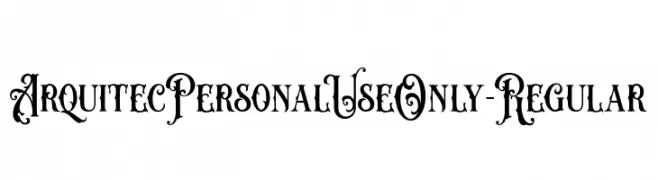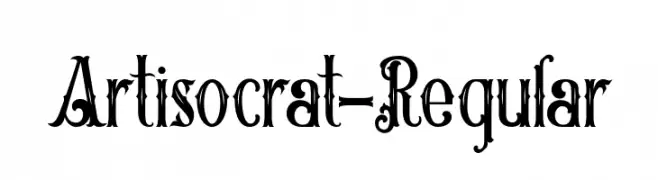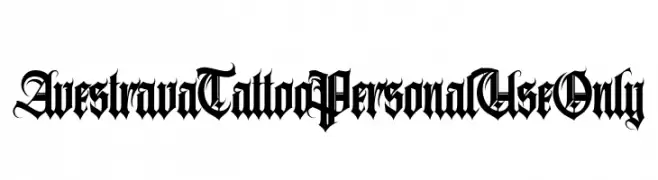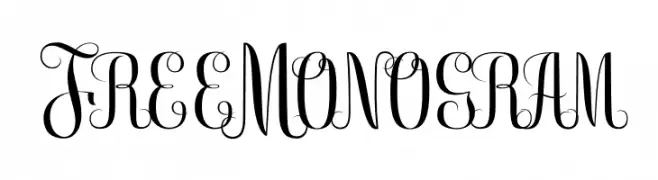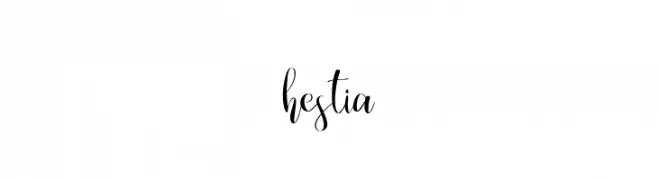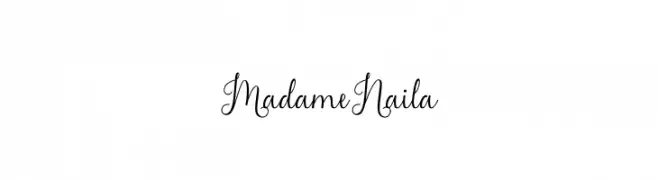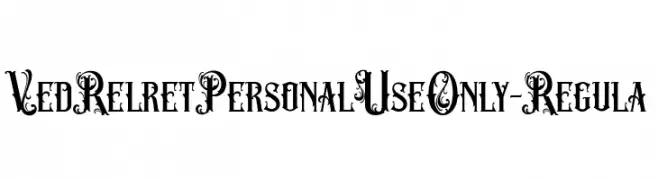
An ornate, decorative font with intricate swirls and embellishments.
An ornate and decorative font with intricate swirls and embellishments.
A bold, ornate Blackletter font with intricate serifs and flourishes.
An elegant, ornate script font with intricate swirls and bold, modern numerals.
A bold, dynamic brush script font with expressive strokes and a hand-painted look.
A modern, elegant script font with dramatic flourishes and smooth curves.
An elegant and flowing script font with intricate loops and swirls.
An elegant script font with intricate loops and a sophisticated, artistic style.
A lively and flowing script font with elegant, cursive letterforms.